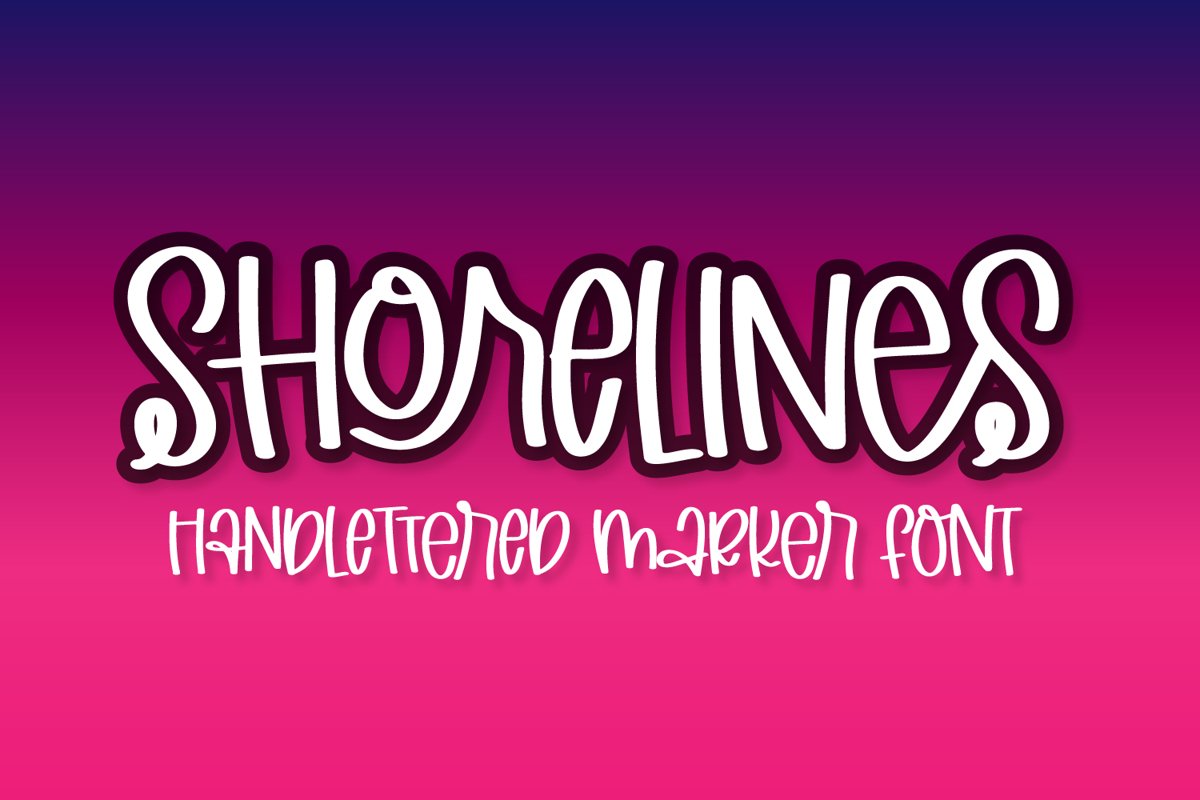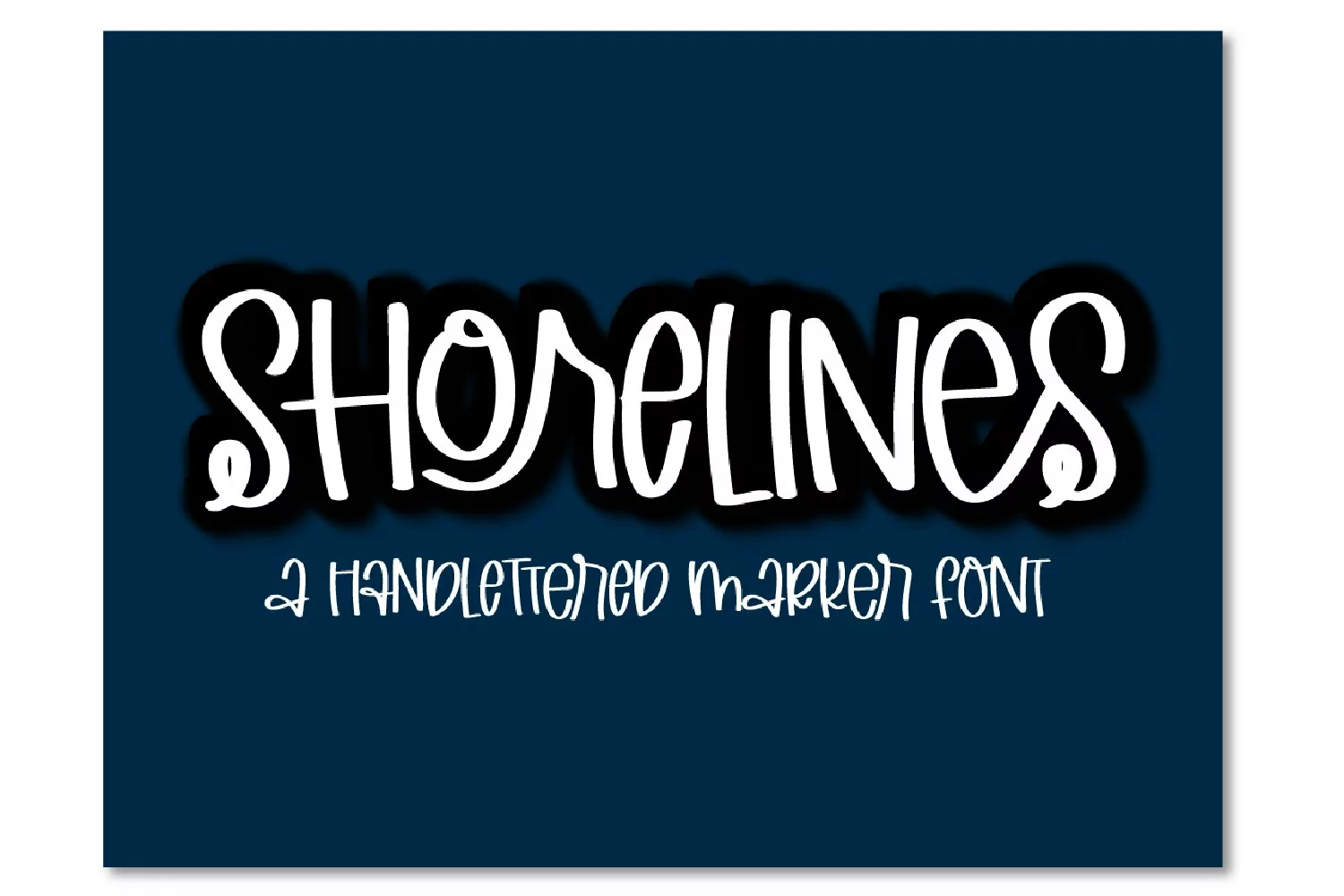
A-Z includes 25 full ornaments and a "frame" without a design
a-z includes 25 circle designs (no ornament attached) and a background ornament for backing your projects.
FB-Shorelines